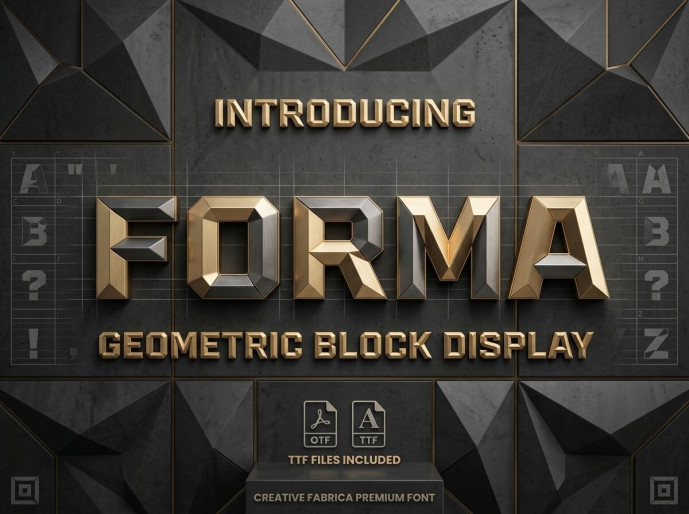
Forte Font
Command unmatched power, architectural precision, and industrial luxury with Forma, an incredible geometric block display font! Forma is the ultimate premier asset for high-end industrial branding, cinematic action movie titles, architectural logos, heavy machinery merchandise, and premium product packaging.